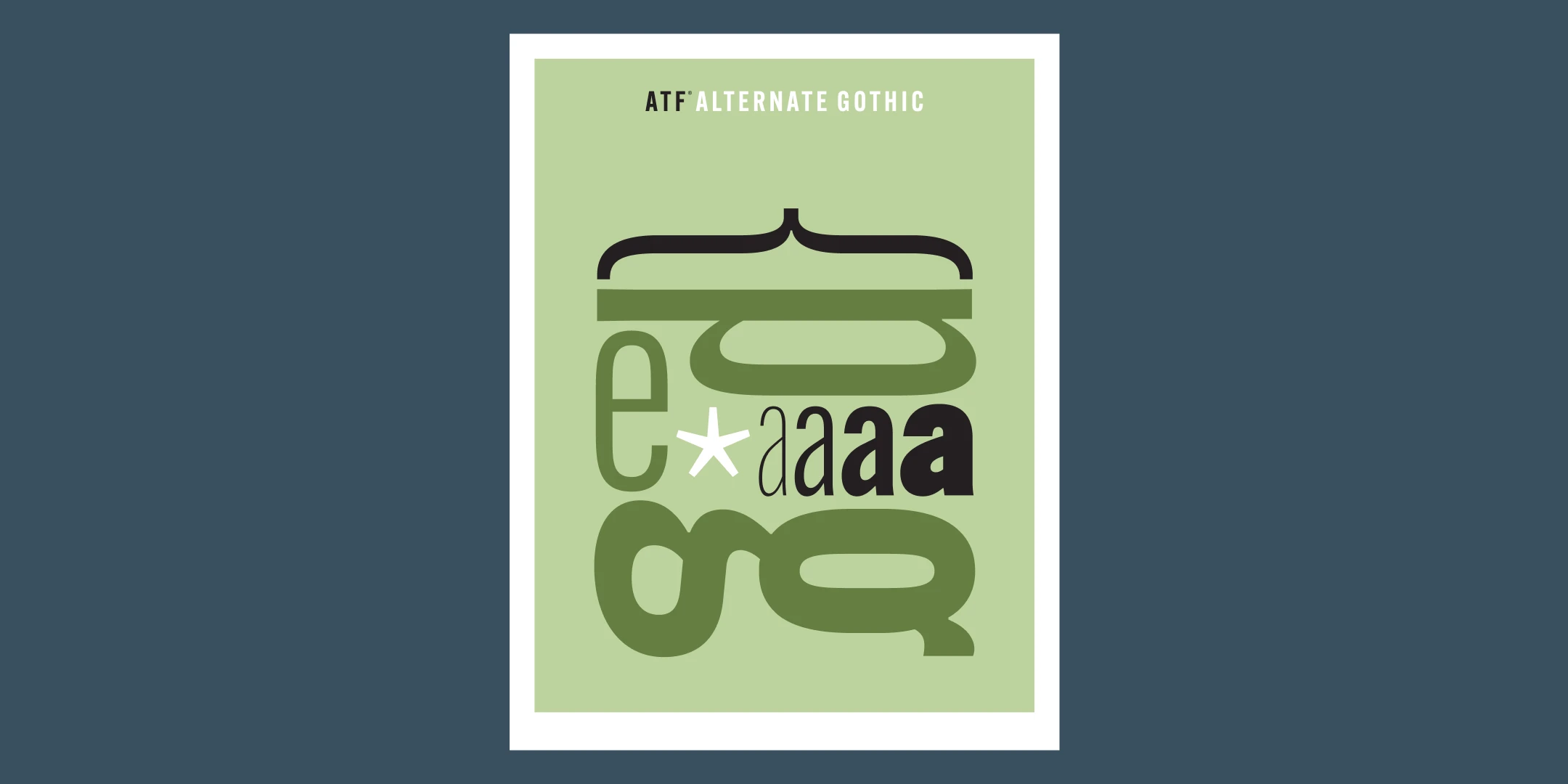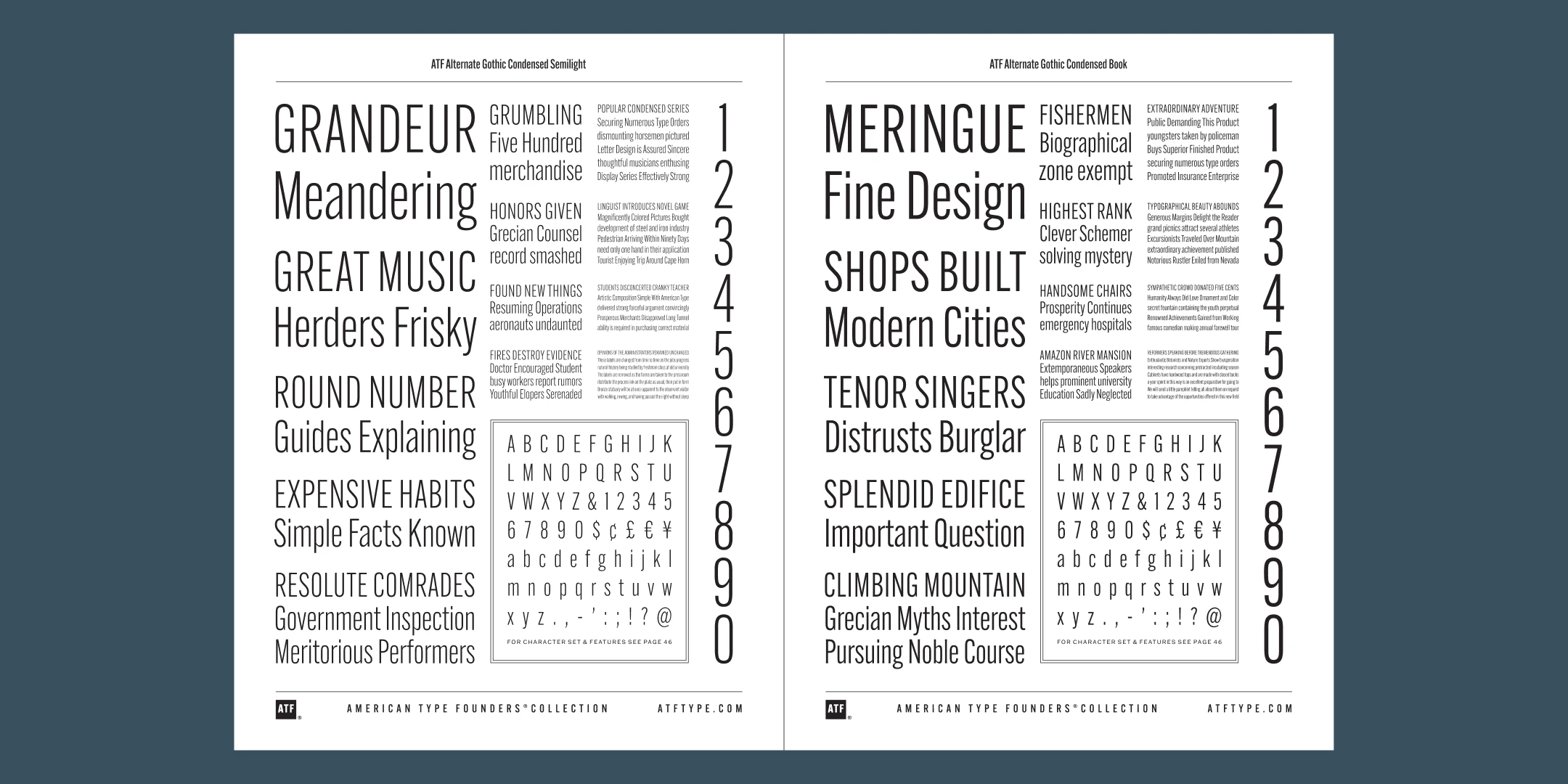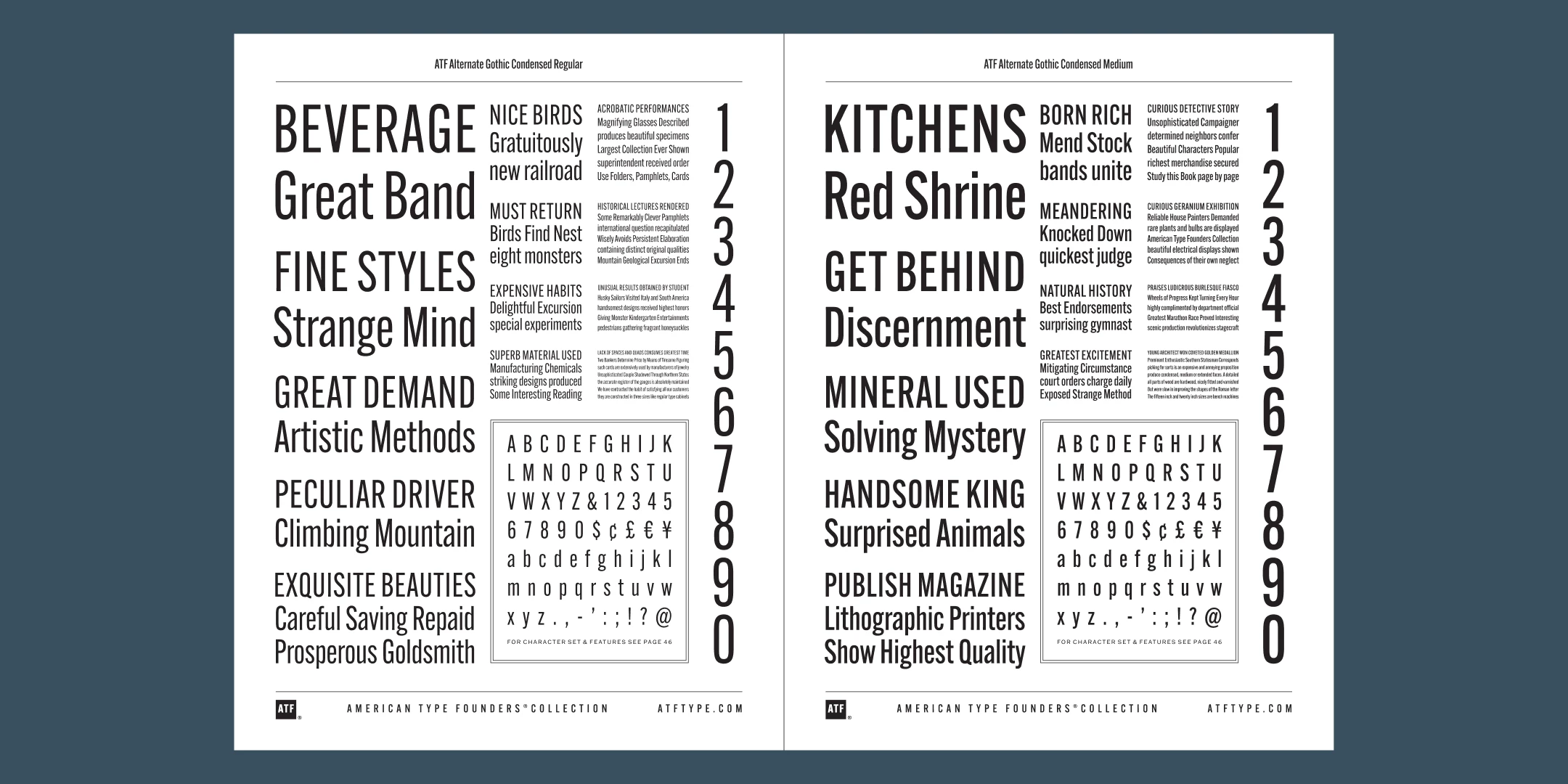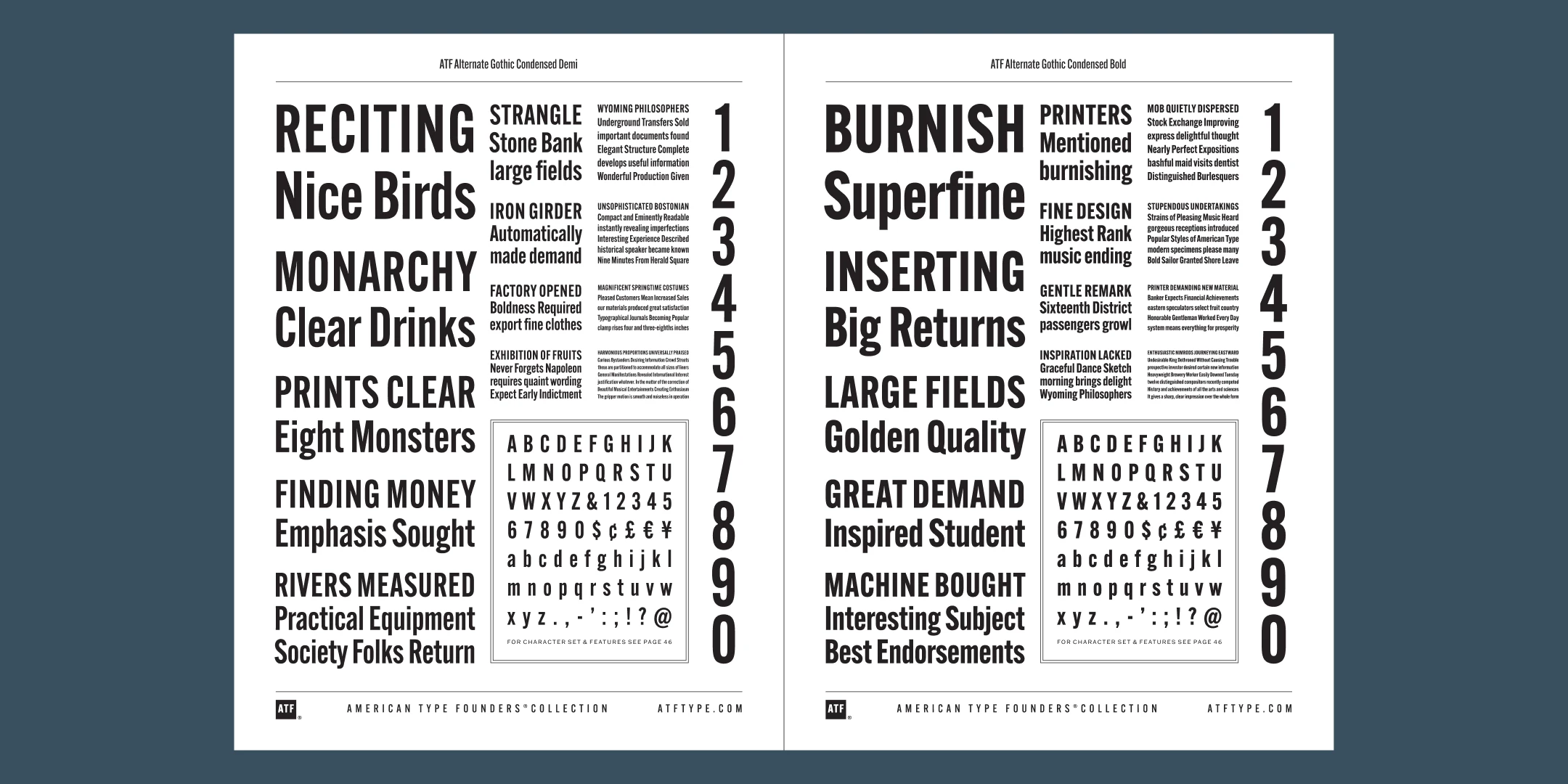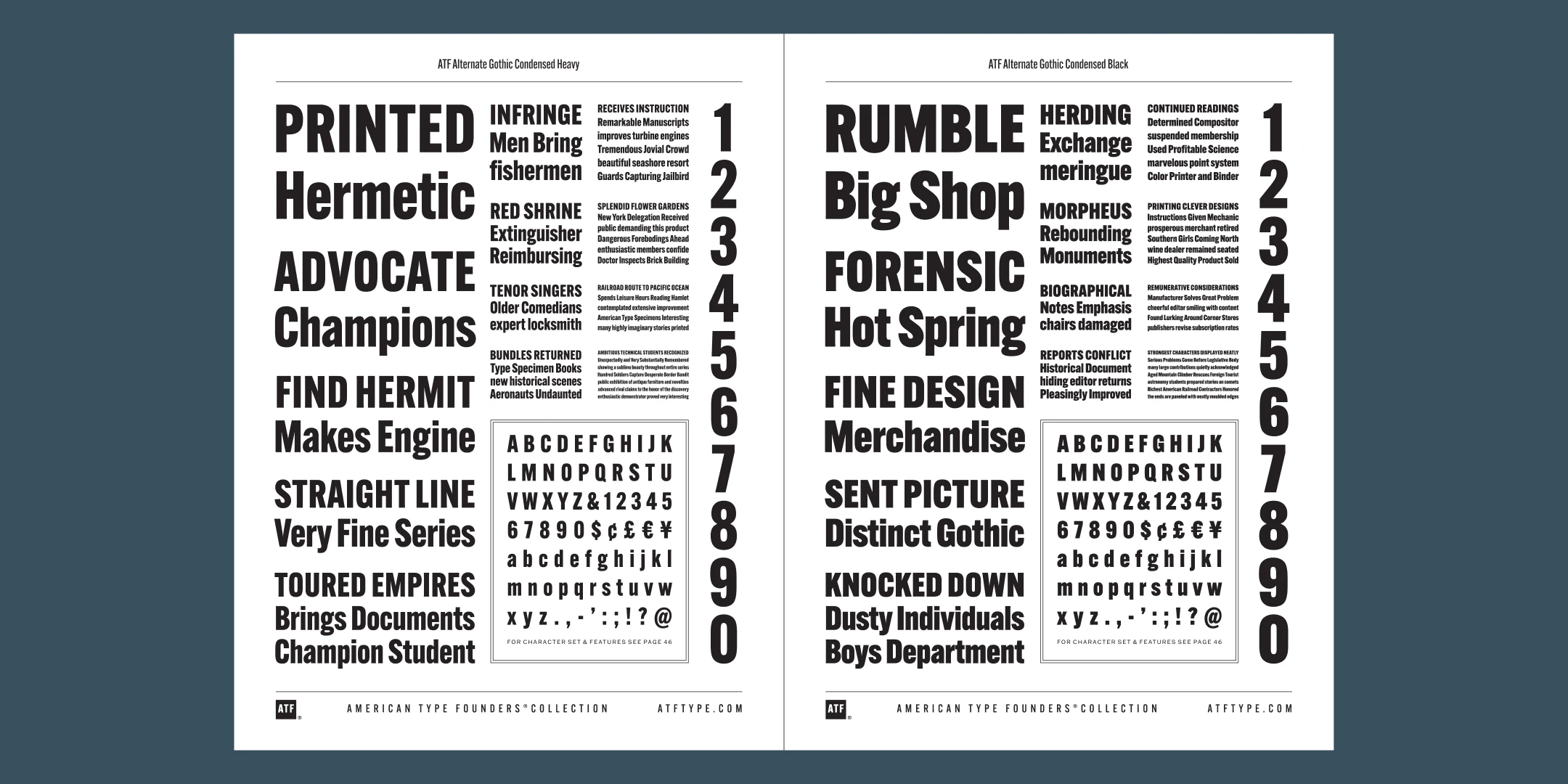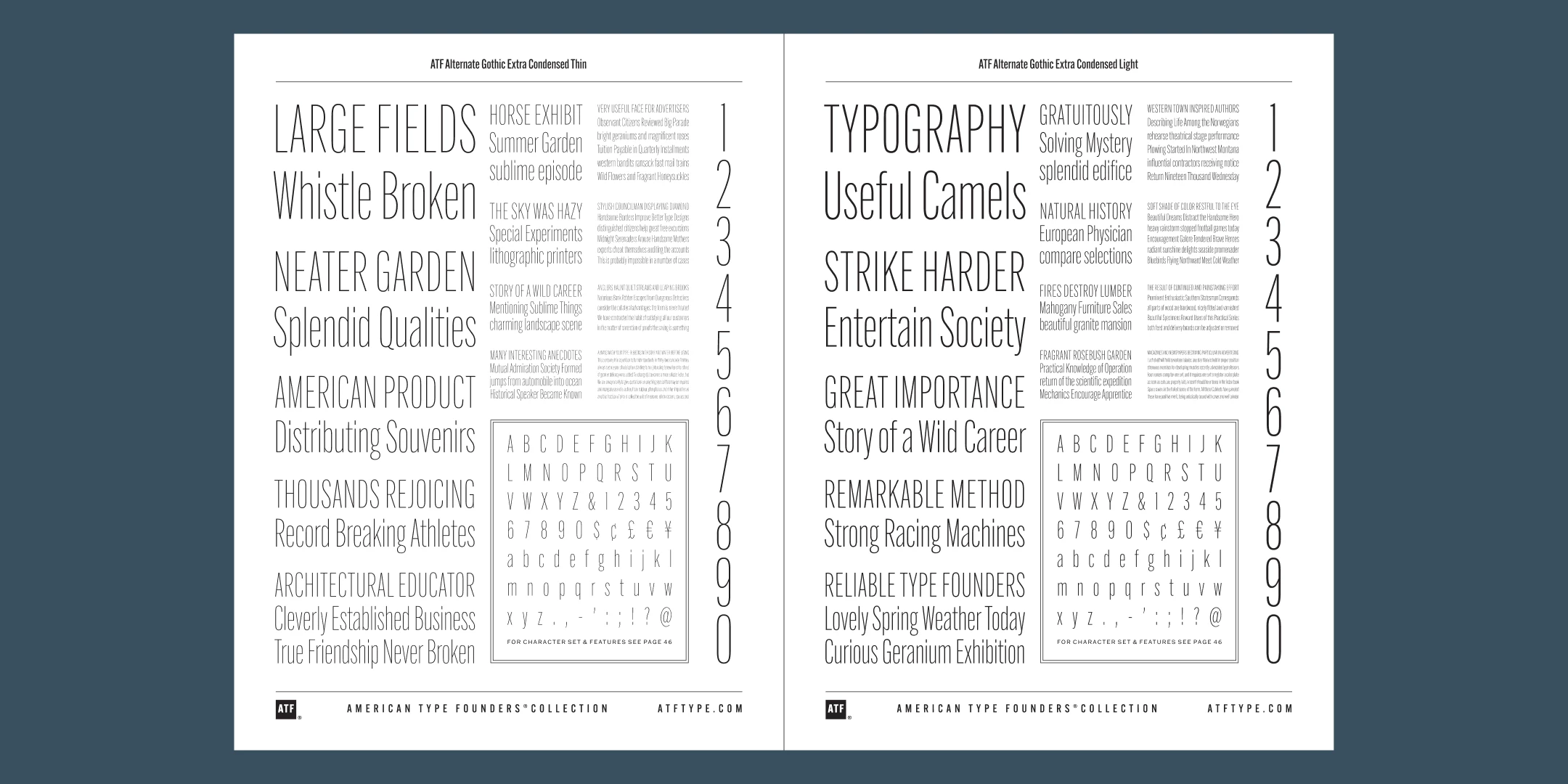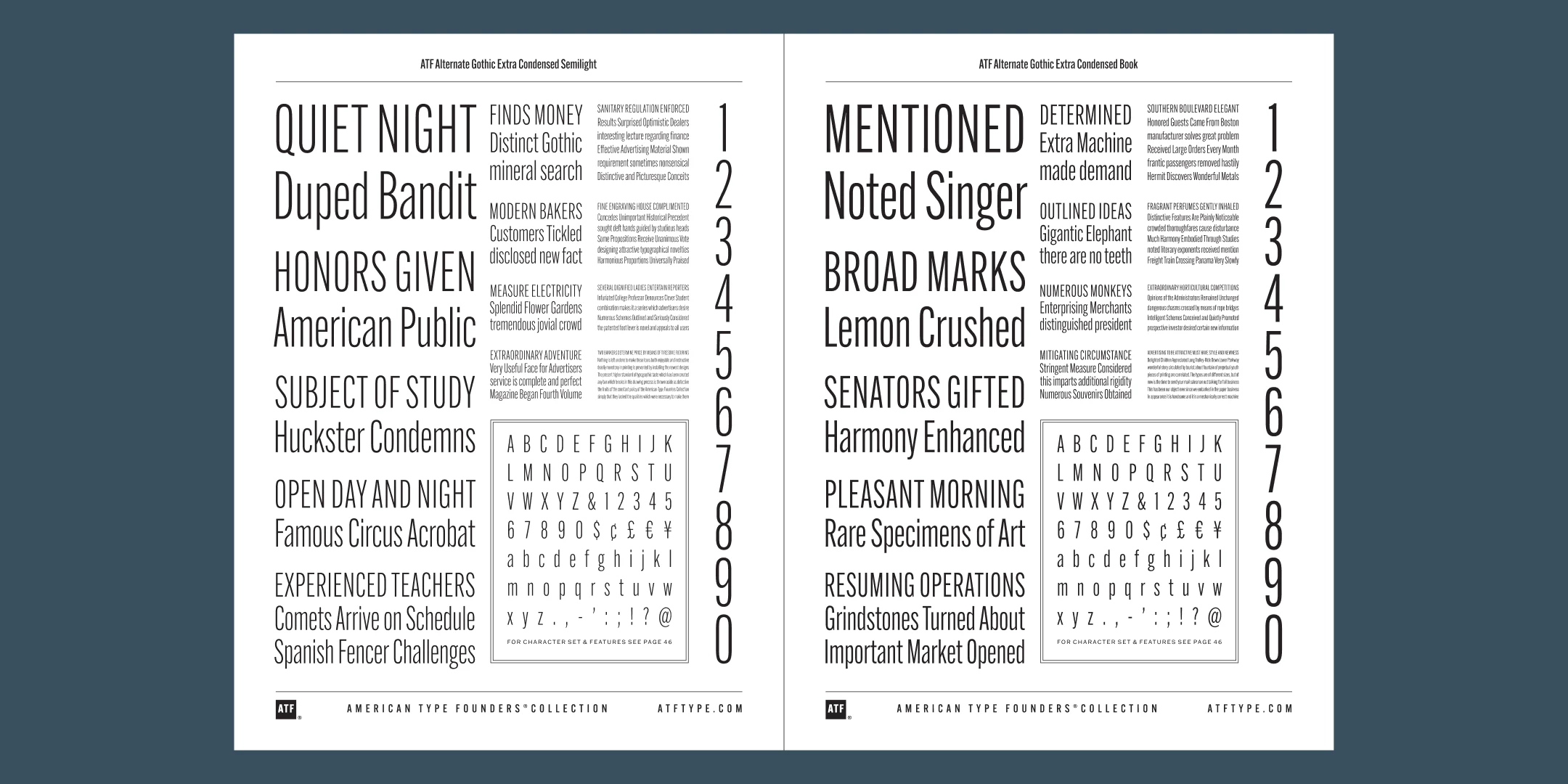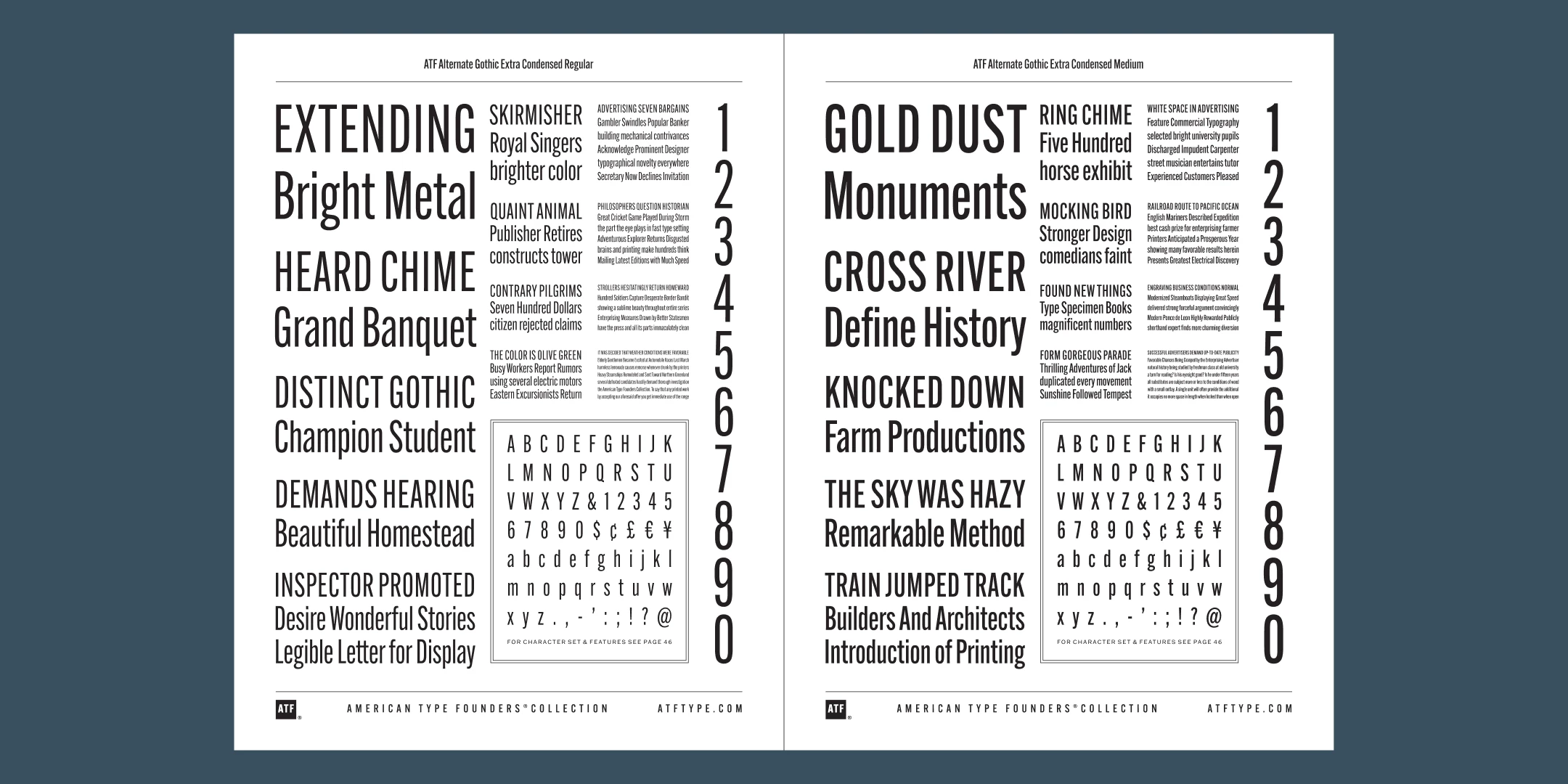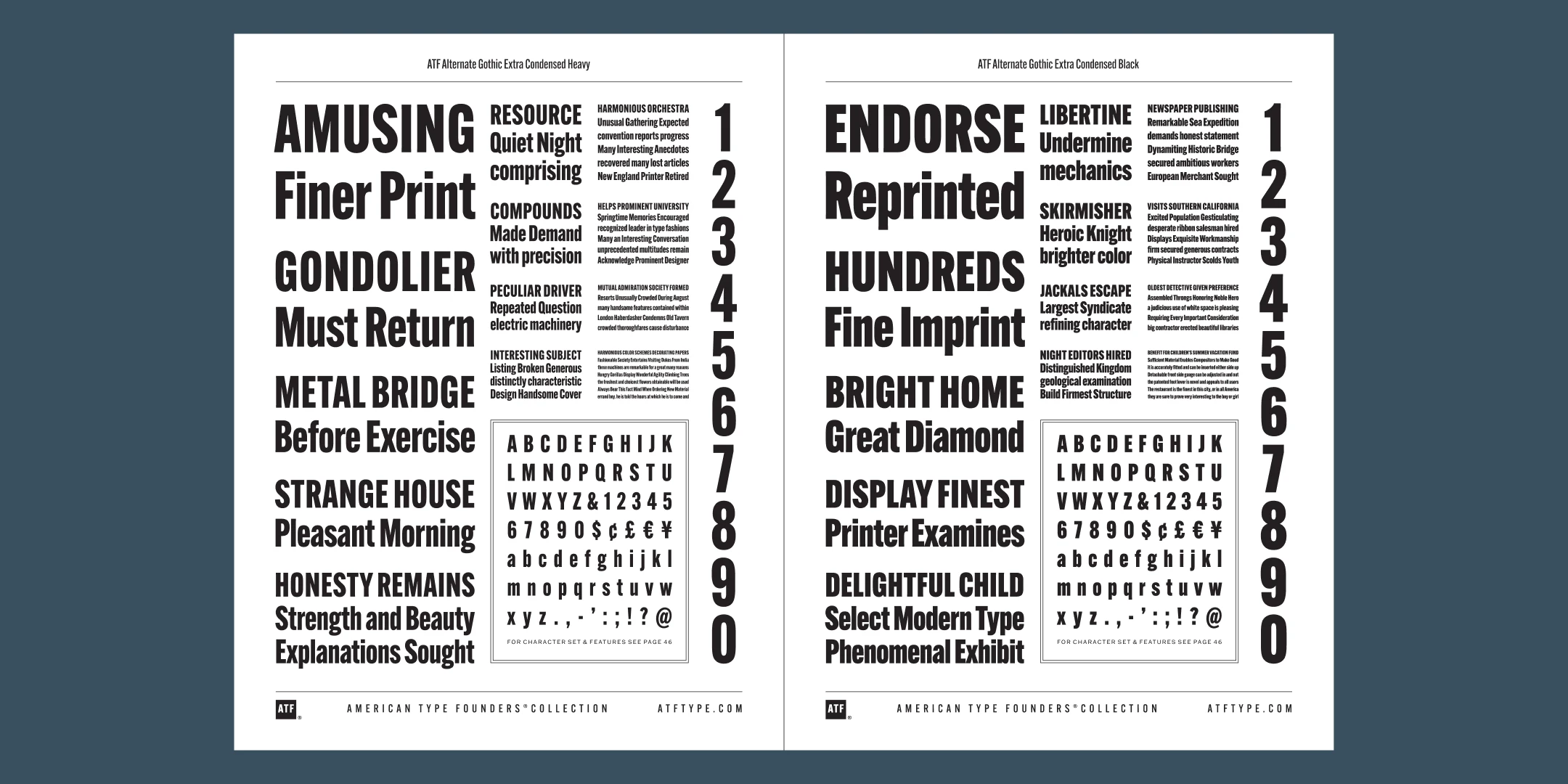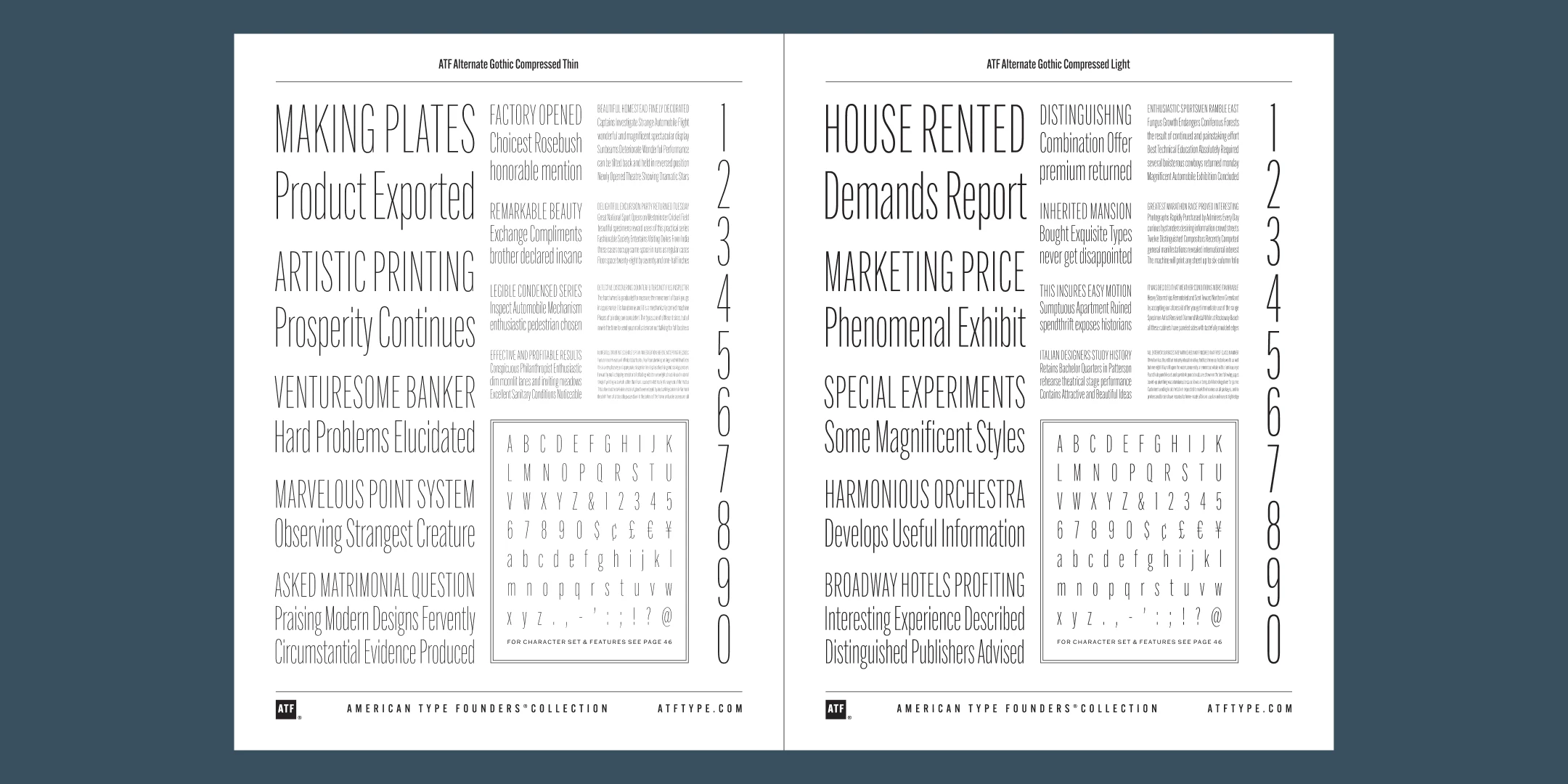
Alternate Gothic Font Family
Designed by Morris Fuller Benton, Mark Van Bronkhorst, Alan Dague-Greene, David Sudweeks, Igino Marini, and Ben Kiel.
1903 and 2015.
The American Type Founders collection was developed by Mark van Bronkhorst.
Alternate Gothic is a significant digital expansion of Morris Fuller Benton’s classic 1903 sans serif font family. Instantly familiar and perfect for headlines.
ATF Alternate Gothic is a new, significant digital expansion of Morris Fuller Benton’s classic 1903 design. Originally available in one bold weight, the typeface came in three widths for flexibility in copy-fitting layouts.
ATF Alternate Gothic has impact at any size. Its letterforms are instantly familiar: Benton’s original metal type family was used throughout the 20th century in newspapers, magazines, and advertising, providing “strong and effective display” in a compact space. Monotype issued its own version for machine typesetting, and Alternate Gothic likely served as inspiration for Linotype’s Trade Gothic® Bold and Bold Condensed. ATF Alternate Gothic expands on the characteristics that perhaps made Trade Gothic so popular, providing a wider range of weights and widths to address the needs of today’s designers and technologies.
The space-saving clarity of ATF Alternate Gothic brings readability to the world of advertising typefaces. With its finely graded range of ten weights, with four widths of each weight (40 fonts total), this extensive family can be used to pack a lot into a narrow space, and the range makes it easy to create variations of an advertisement or announcement for different formats and media.
The tall x-height and narrow proportions, combined with a relatively low waist and springy, tension-filled forms, make ATF Alternate Gothic strong and effective in display. All ten weights have been carefully spaced for readability. Caps and lowercase work well together, while attention-grabbing all-caps settings are clear and never crowded, no matter how narrow.